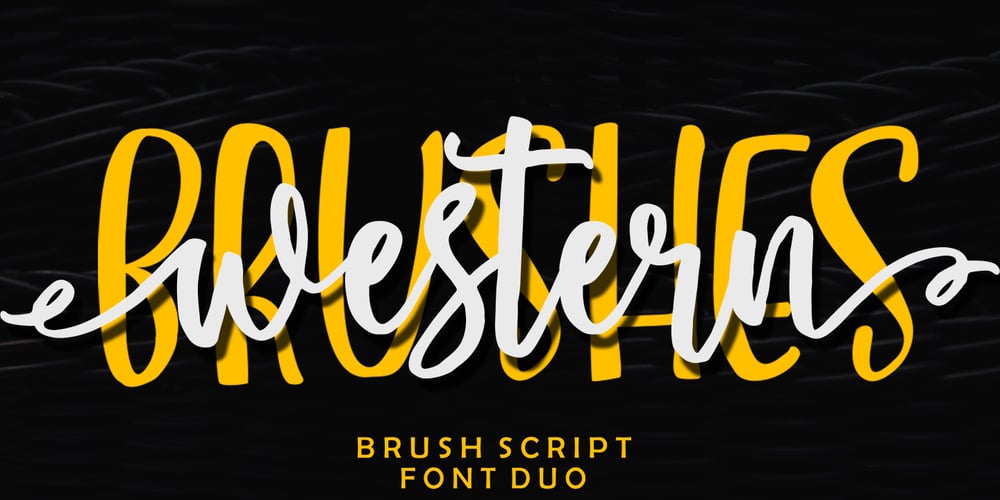
Western Brushes Font Family was designed by Muhajir Akarim and published by Soft Creative. Western Brushes contains 2 styles and family package options. Western Brushes is a modern, organic, dynamic, and energetic brush font. Can be used for various purposes. such as titles, signatures, logos, correspondence, wedding invitations, letterhead, signage, labels, bulletins, posters, badges, etc.